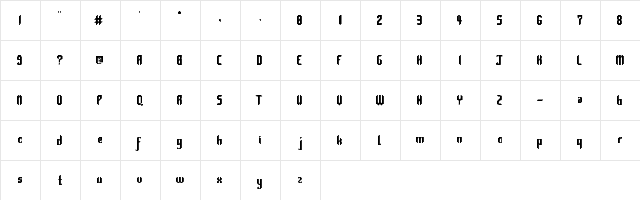
Kontra Regular
Design Context for Kontra Typeface
Kontra is a composed and adaptable typeface that performs quietly and consistently across a wide range of design contexts.